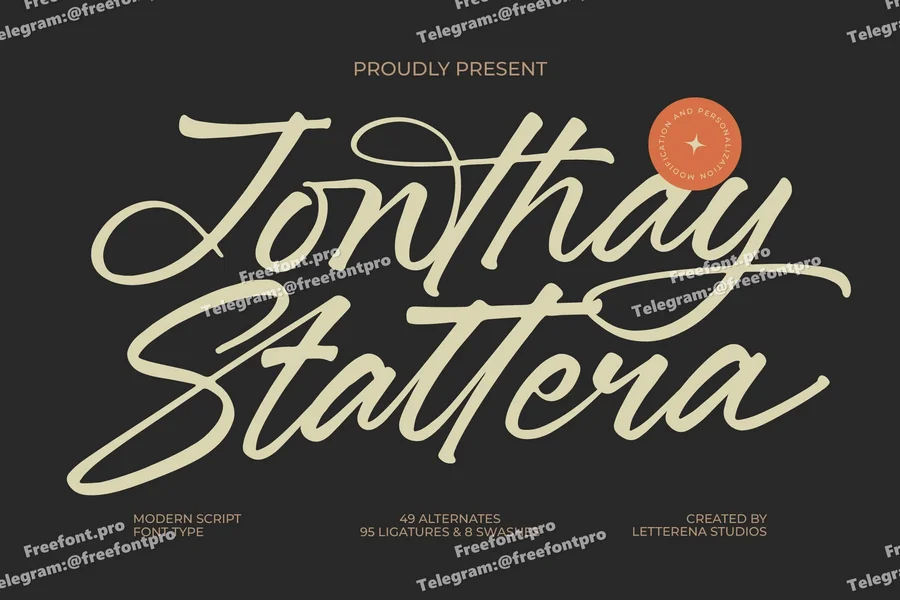
Jonthay Stattera
Hi ladies & gentlemen, this is one of our fonts suitable to complement your digital and printed creative products. This font is perfect for posters, social media posts, branding, personal projects, etc.